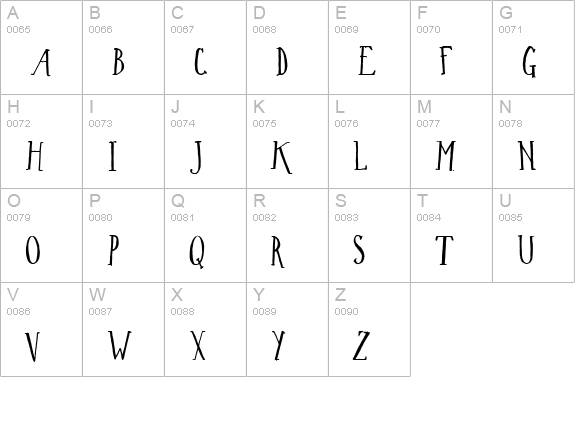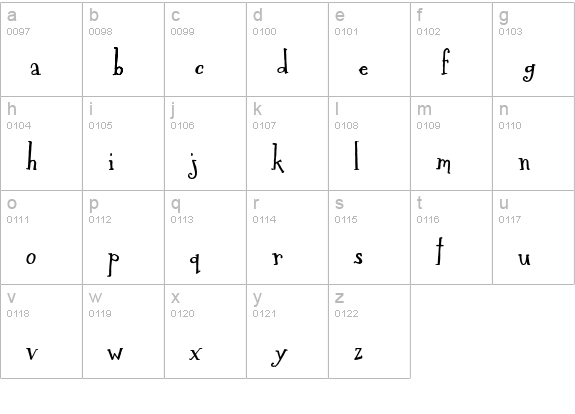
CK Storybook Font Details
Introducing CK Storybook font, a whimsical and charming typeface perfect for adding a touch of playfulness to your designs. With its lively characters and unique flair, this font is sure to capture the imagination of your audience. Whether you're creating children's books, greeting cards, or event invitations, CK Storybook font will bring a sense of fun and creativity to your projects. The best part? CK Storybook font is completely free to download at FontsMarket.com. Now you can easily access this delightful font and incorporate it into your designs without any cost. Don't miss out on the opportunity to enhance your creations with the magic of CK Storybook font. Download it today and let your imagination soar!